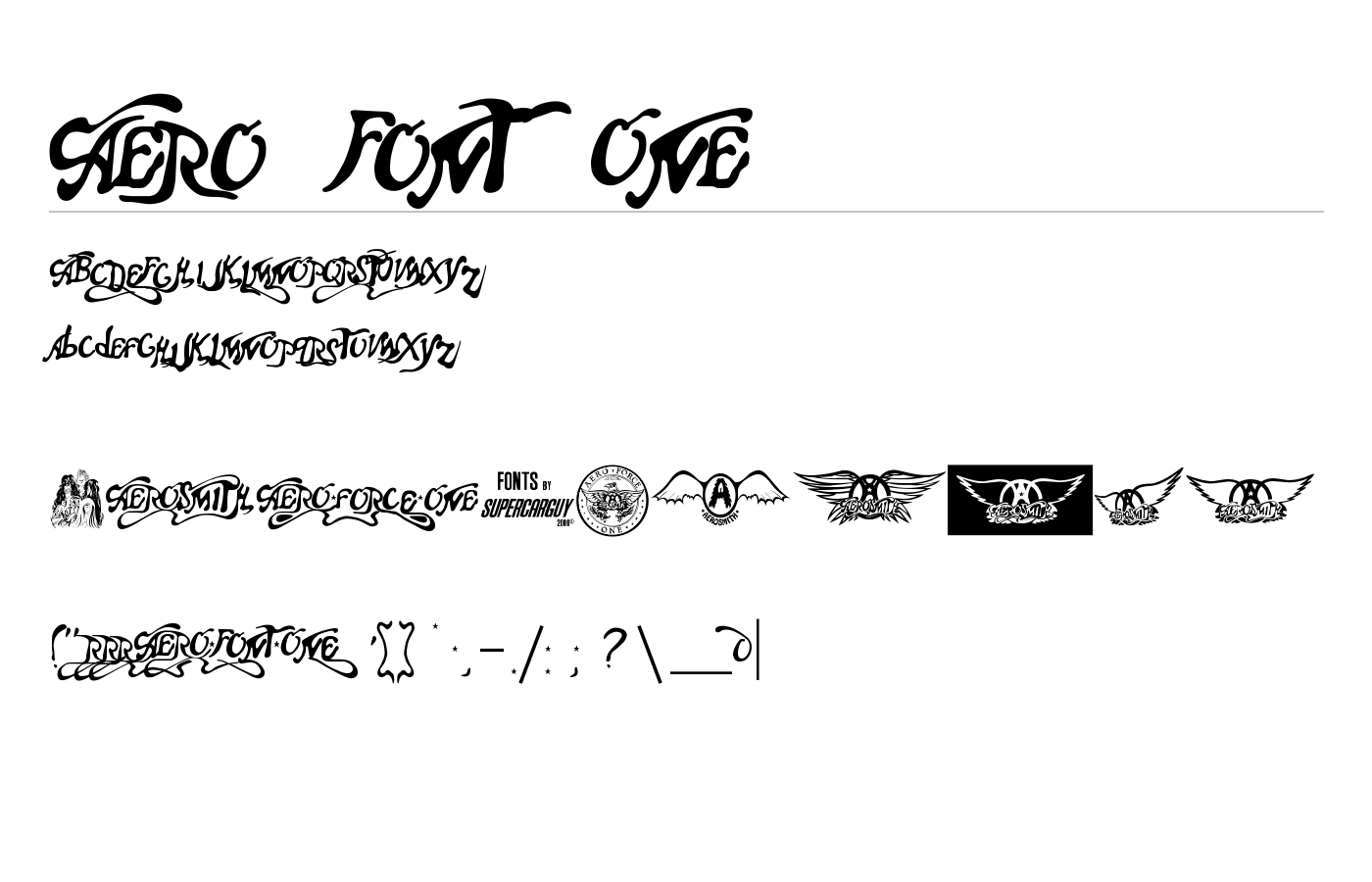
Aero Font One is a highly stylized, script-like display font with an intricate and flowing design that evokes a vintage rock and roll vibe. Its bold, compact letterforms combine sharp curves and ornate swashes, creating a dramatic and energetic personality perfect for logos, band posters, or branding that seeks a rebellious, retro edge. This font stands out best in large sizes where its decorative details can shine and captivate an audience seeking a statement look.